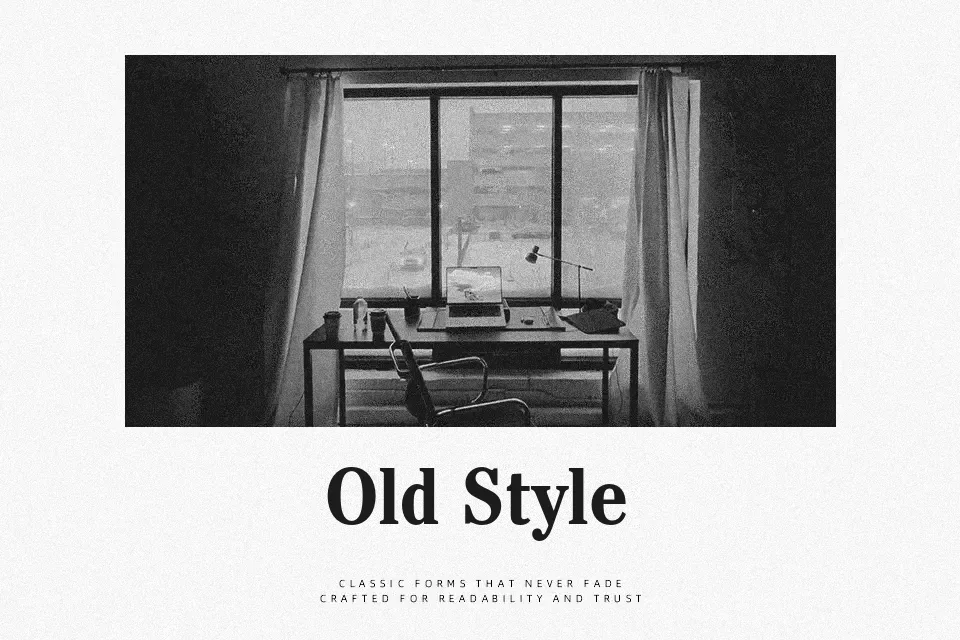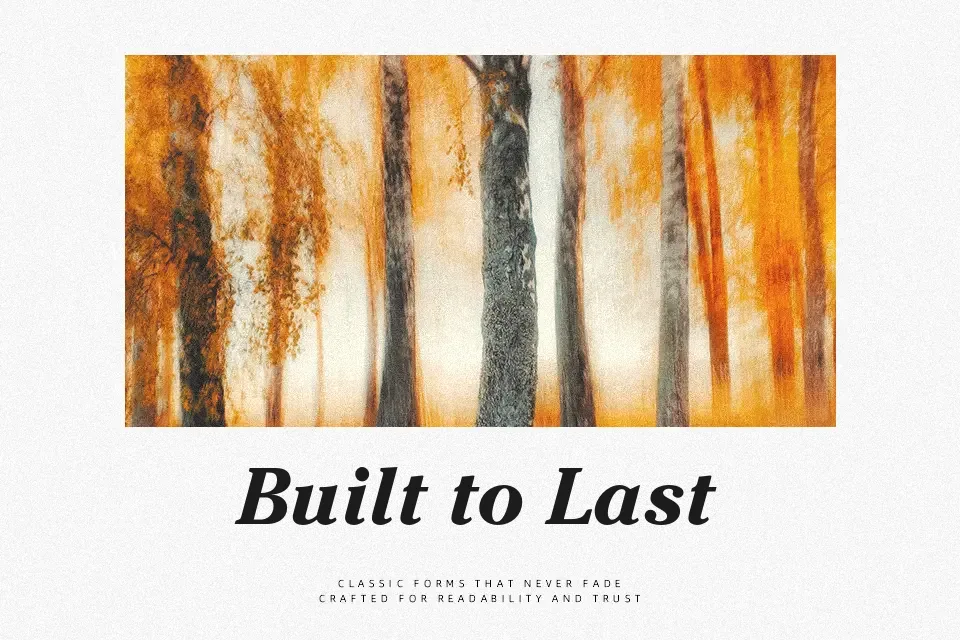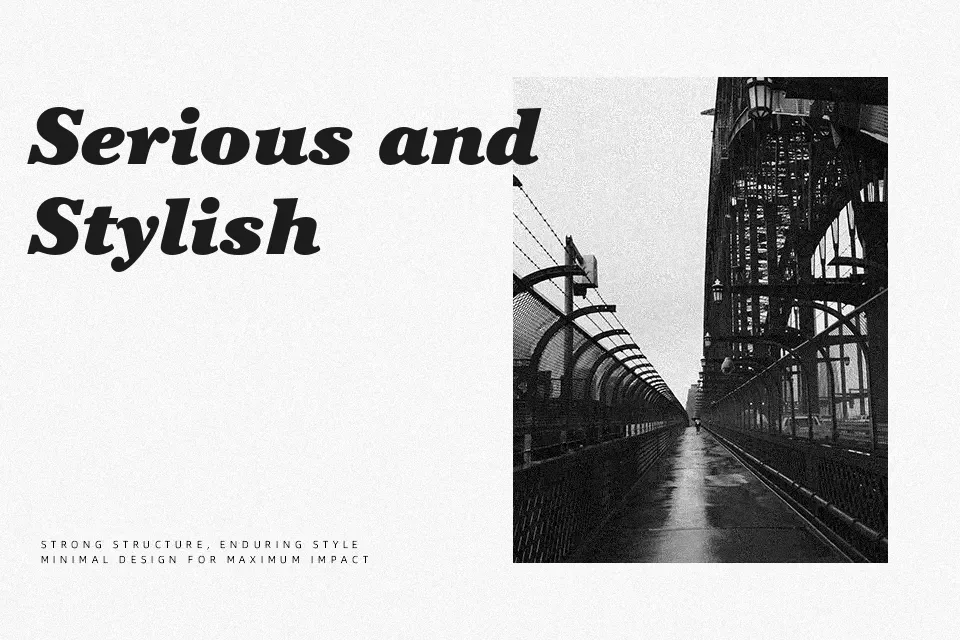
ITC Cheltenham Std Font
Designed by Tony Stan
The moment you encounter ITC Cheltenham Std, its rich, traditional warmth immediately commands attention. This old-style serif design, developed by Tony Stan, is defined by its slightly narrow proportions, prominent, rounded serifs, and tall x-height, which together create a remarkably solid yet inviting texture. The gentle, rolling curves and sturdy stems provide a grounded, professional aesthetic that feels both approachable and authoritative.
This typeface shines brilliantly when applied to classic editorial layouts, robust brand identities, and premium product packaging where a sense of established heritage is desired. Conversely, its somewhat heavy, old-world character does not perform well in ultra-modern, minimalist tech interfaces, where its ornate details can feel severely out of place and overly decorative. Compared to strict, high-contrast transitional serifs, ITC Cheltenham Std feels noticeably softer and far more conversational.
– classic editorial layouts
– traditional corporate branding
– premium product packaging
– restaurant menus
– minimalist tech interfaces
– futuristic sports logos
– ultra-modern web design
Perfect for body text, branding, and editorial, with a classic and condensed style.